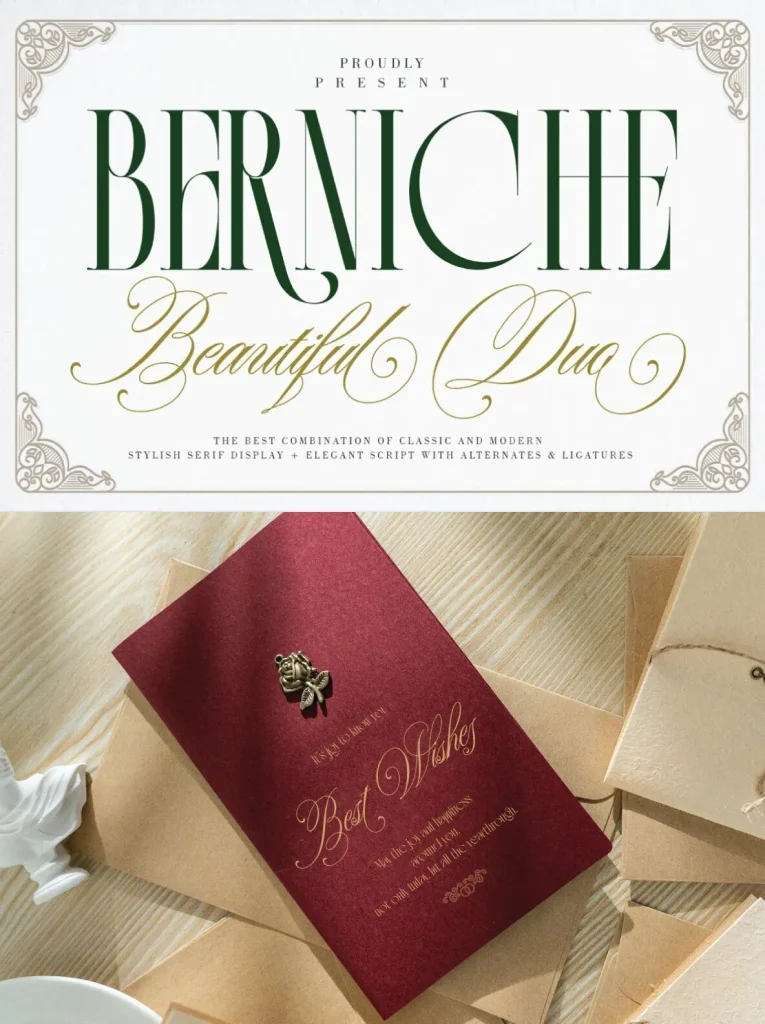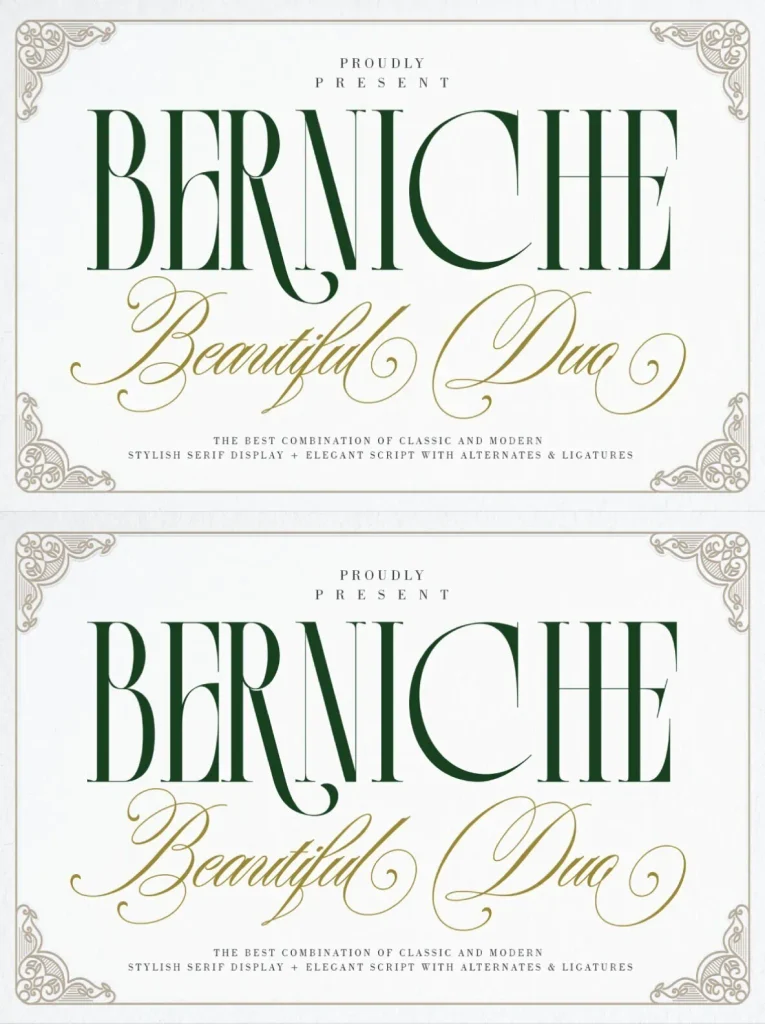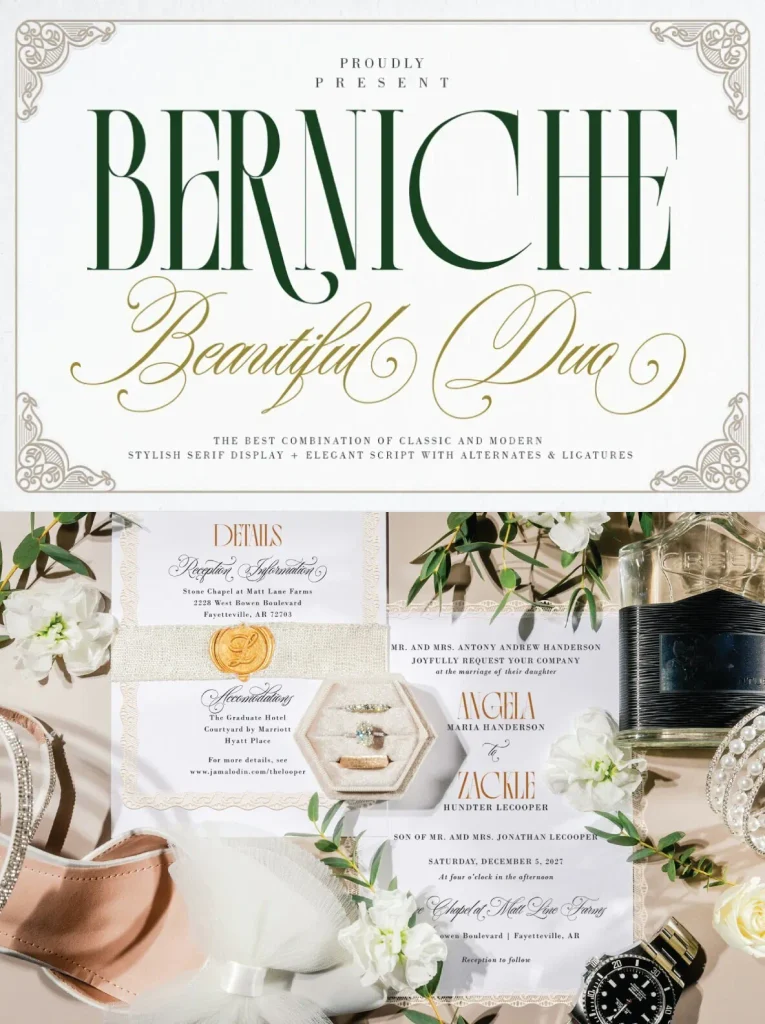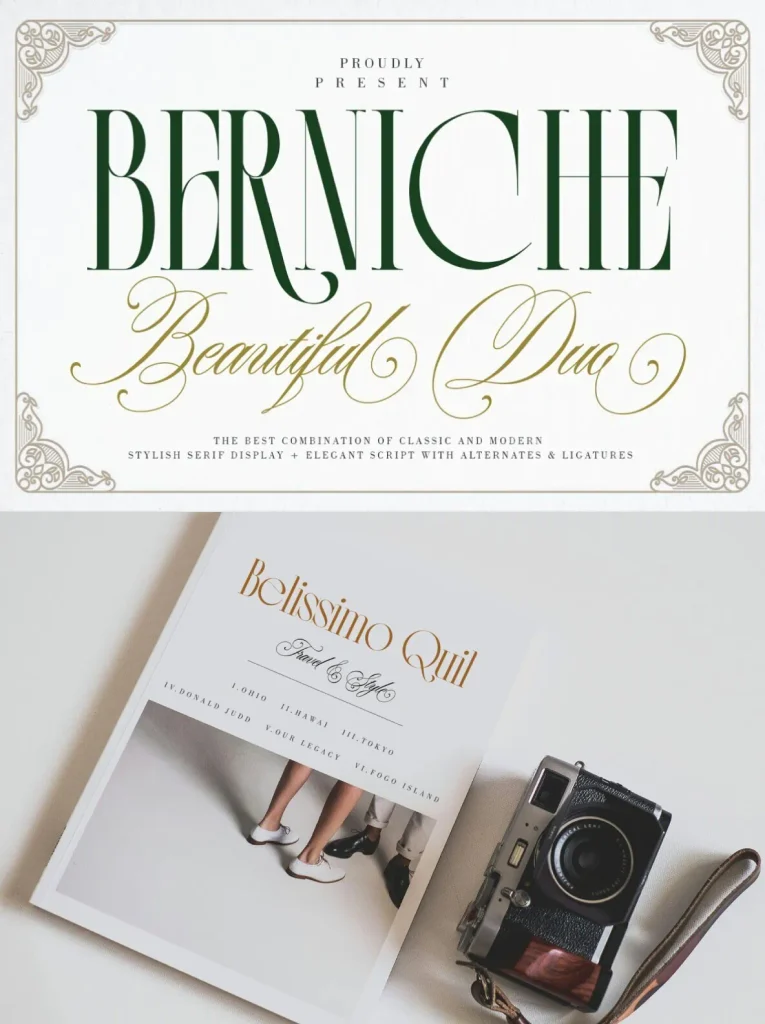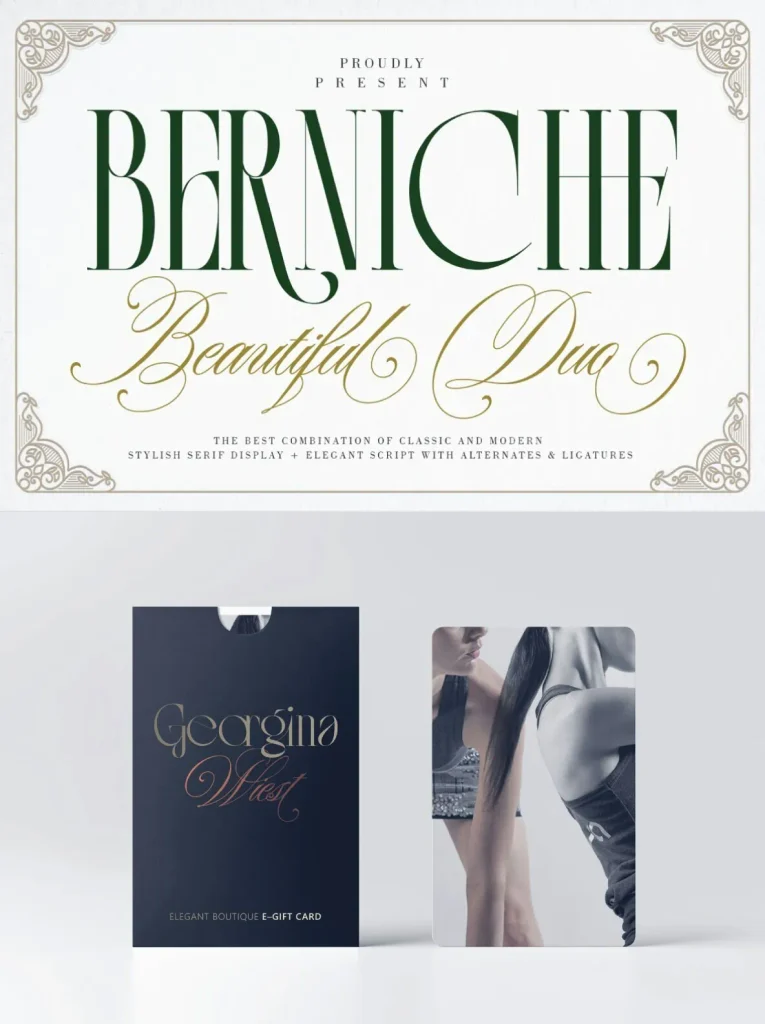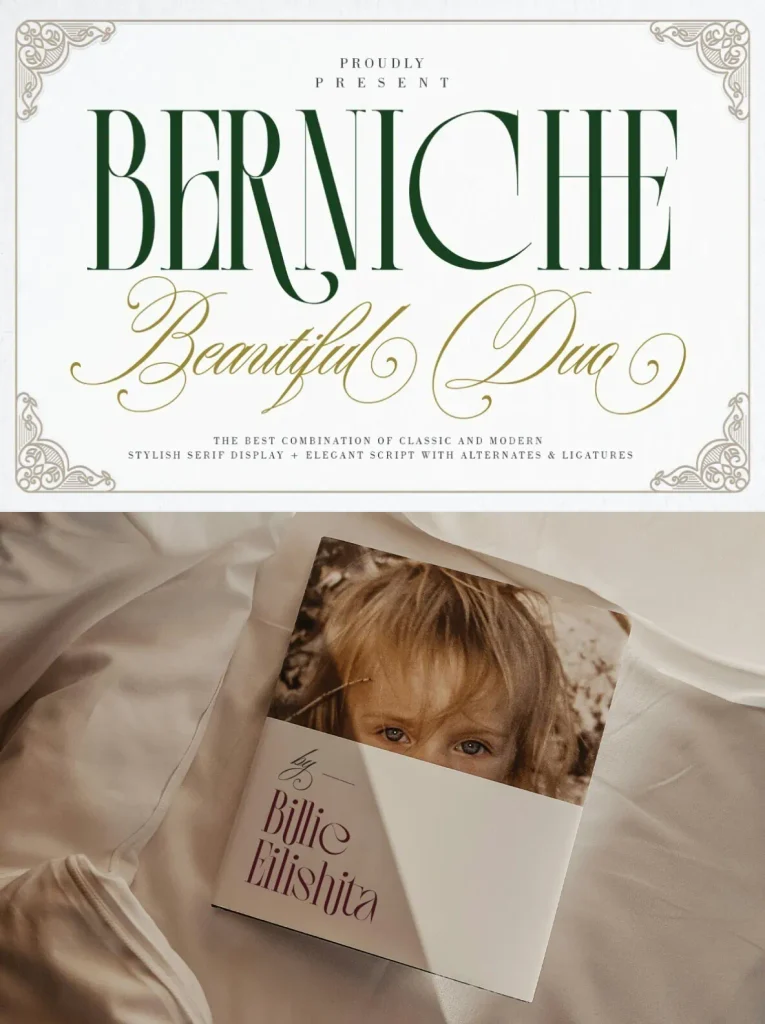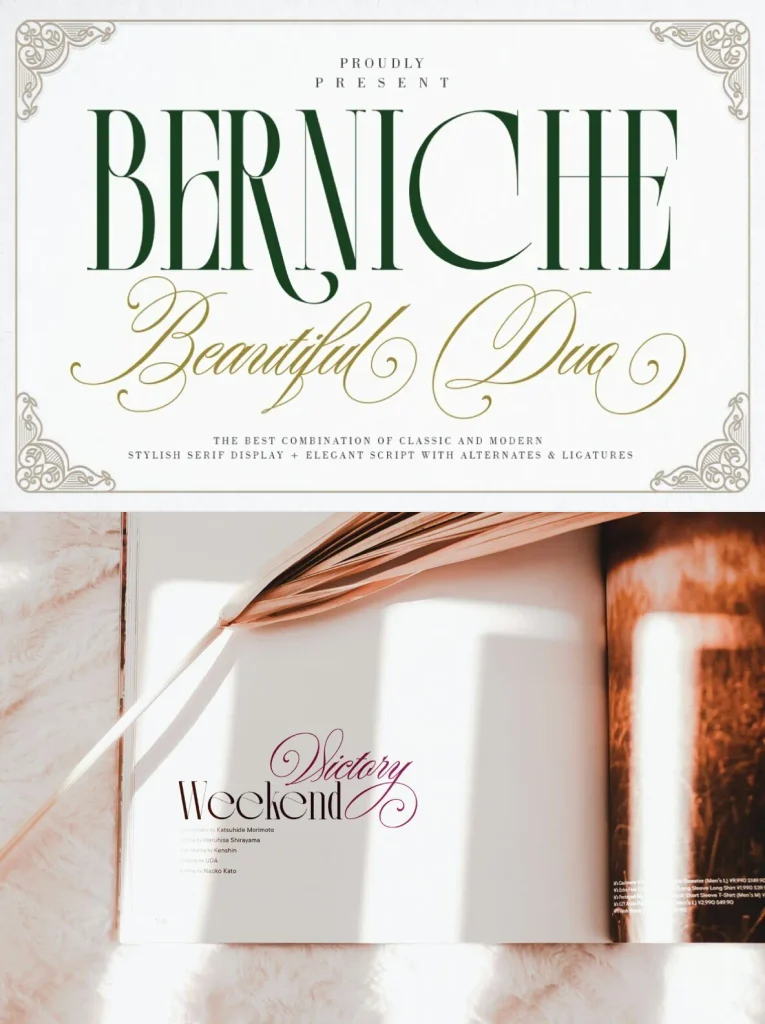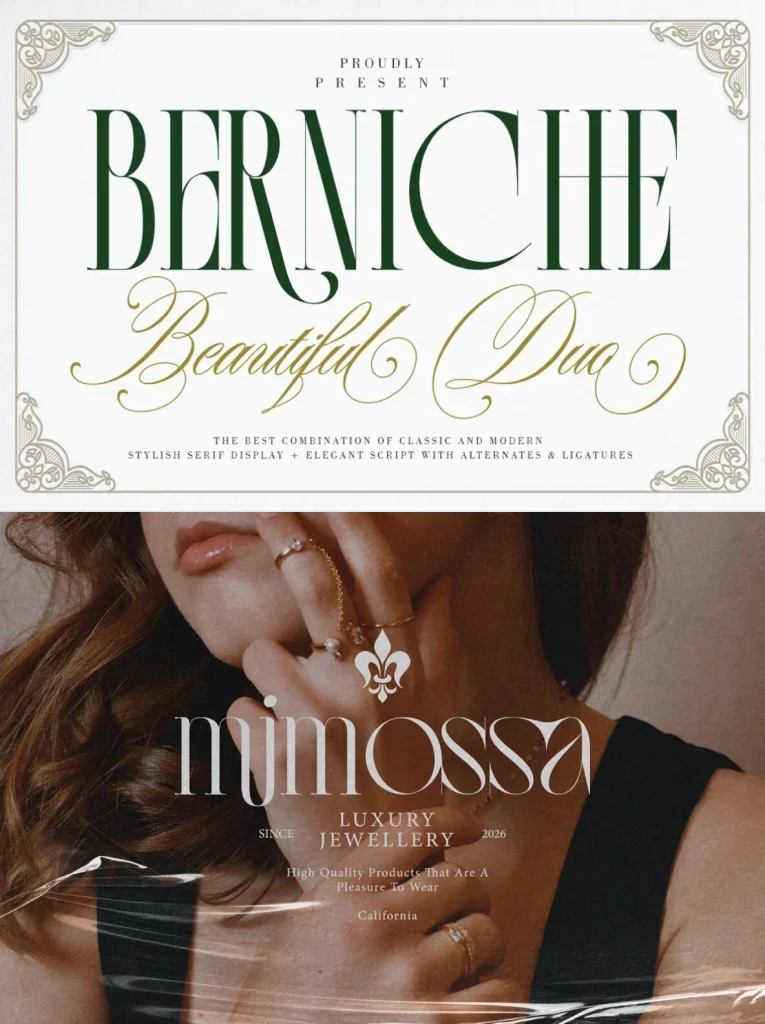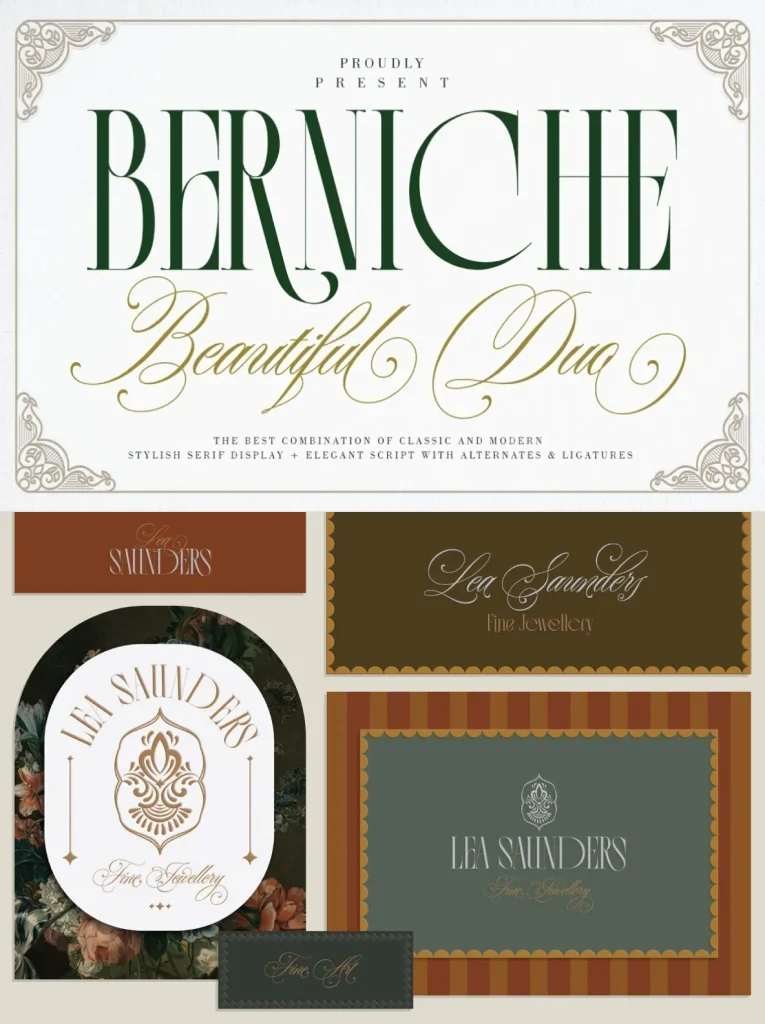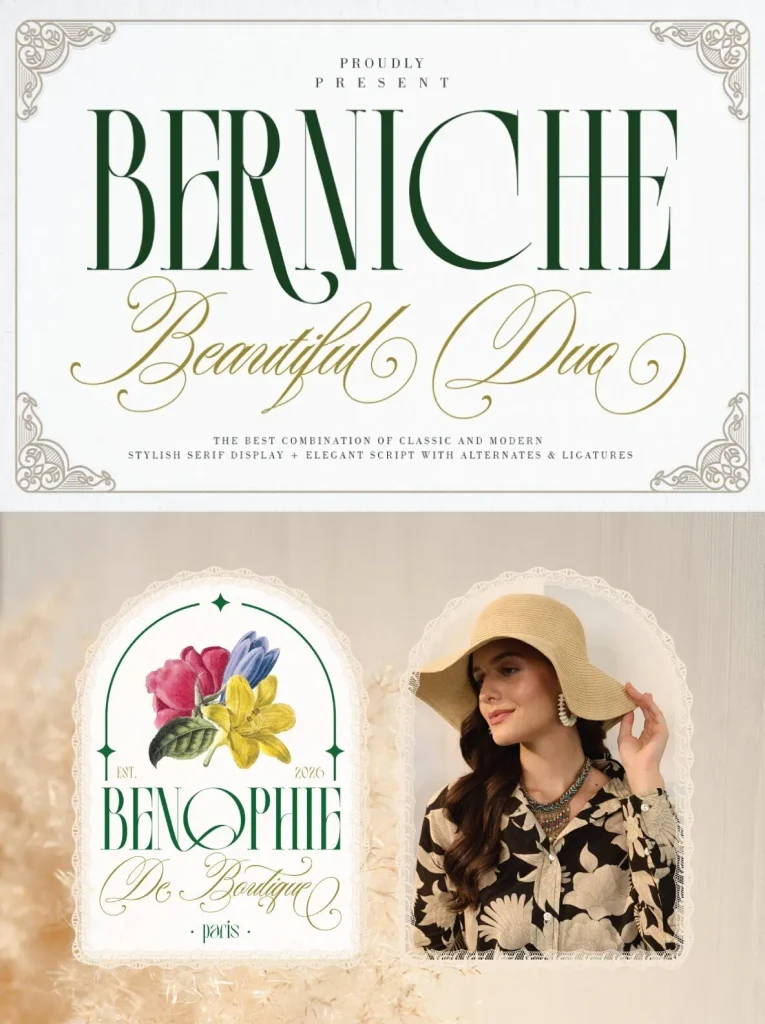
Berniche Beautiful Duo — Classic Meets Modern
Berniche Beautiful Duo brings together a stylish serif display typeface and an elegant script font. This classic and modern pairing suits branding, wedding invitations, greeting cards, posters, name cards, quotes, blog headers, logos, fashion projects, letters, stationery, and other design work.
The fonts support ligatures, alternates, and multilingual use. Berniche Beautiful Duo also includes PUA Unicode, so alternate characters can be accessed in full by craftspeople and designers who need precise control over decorative glyphs.